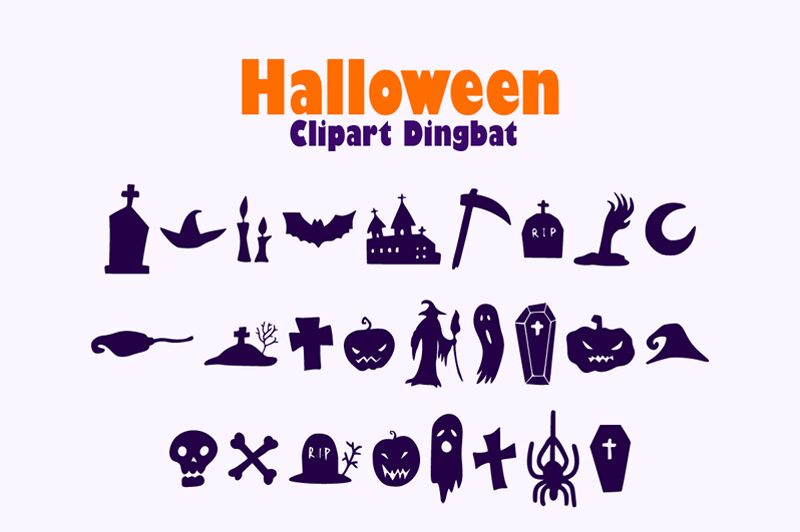
Halloween Clipart, designed by Muhammad Yafinuha, is a playful and spooky dingbats font that brings the spirit of Halloween to life.
With its intricate designs of bats, pumpkins, witches' hats, and ghosts, this font is perfect for adding a touch of whimsy to your Halloween-themed projects. Whether you're creating invitations for a costume party or designing decorations for a haunted house, Halloween Clipart will add an extra element of fun and creativity.
Let your imagination run wild with this delightful font that captures the essence of the spookiest holiday of the year.